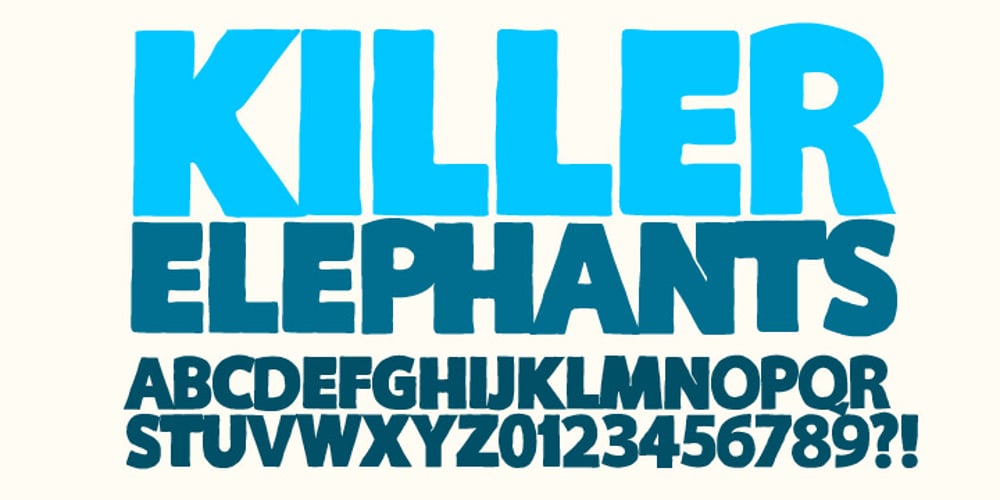
Killer Elephant
Killer Elephant font
Killer Elephant Font Family was designed by Emil Karl Bertell and published by Fenotype. Killer Elephant contains 1 styles and family package options. Killer Elephant is a heavy-as-hell all-caps font that’ll trample all over your design. Killer Elephant is recommended to use in posters and flyers and in anything mutant, jungle or superhero related.